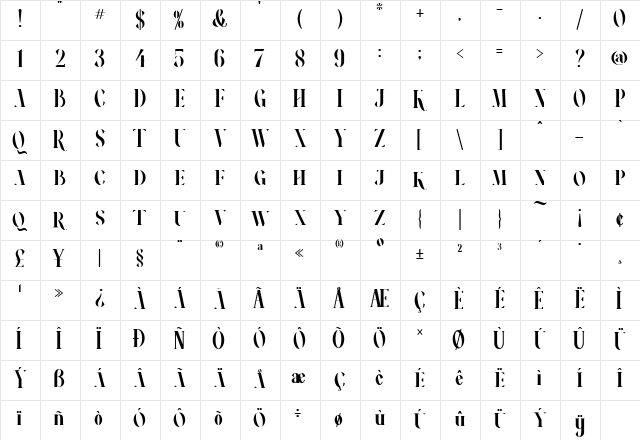
RONEOUS_Caps Regular
RONEOUS_Caps is a composed and adaptable typeface that performs quietly and consistently across a wide range of design contexts.